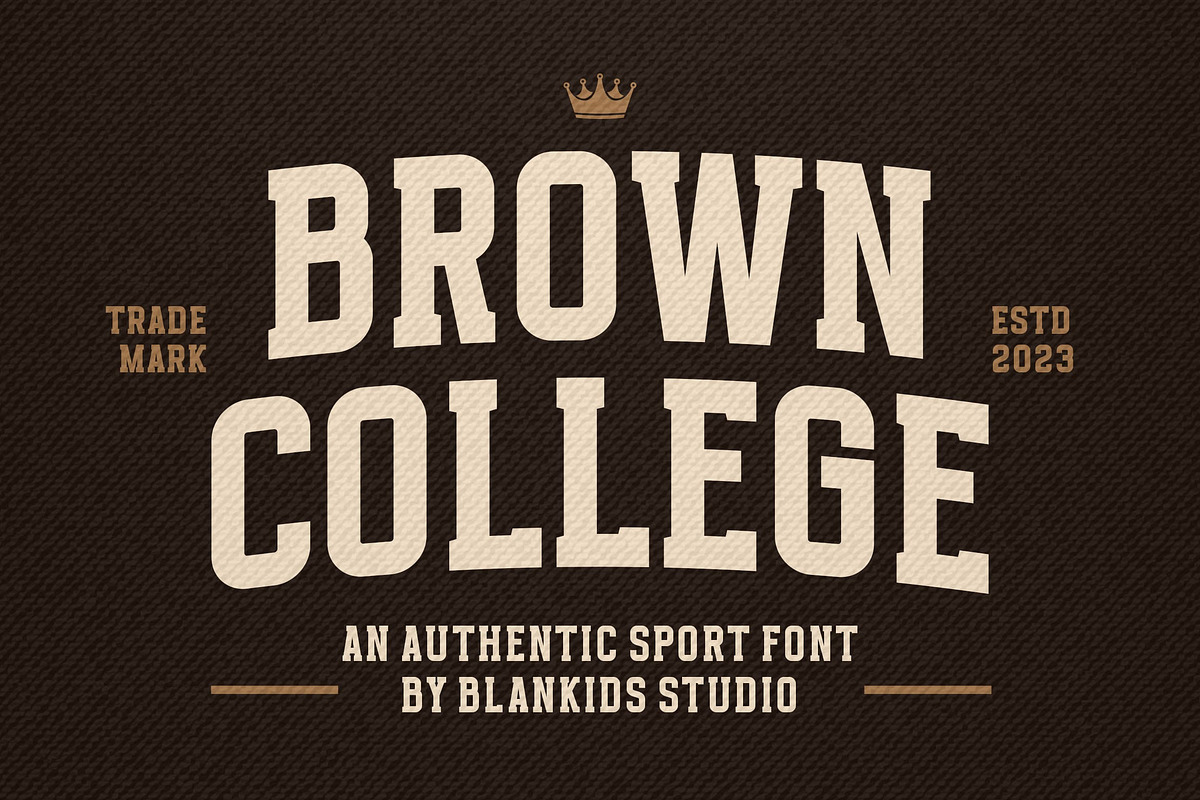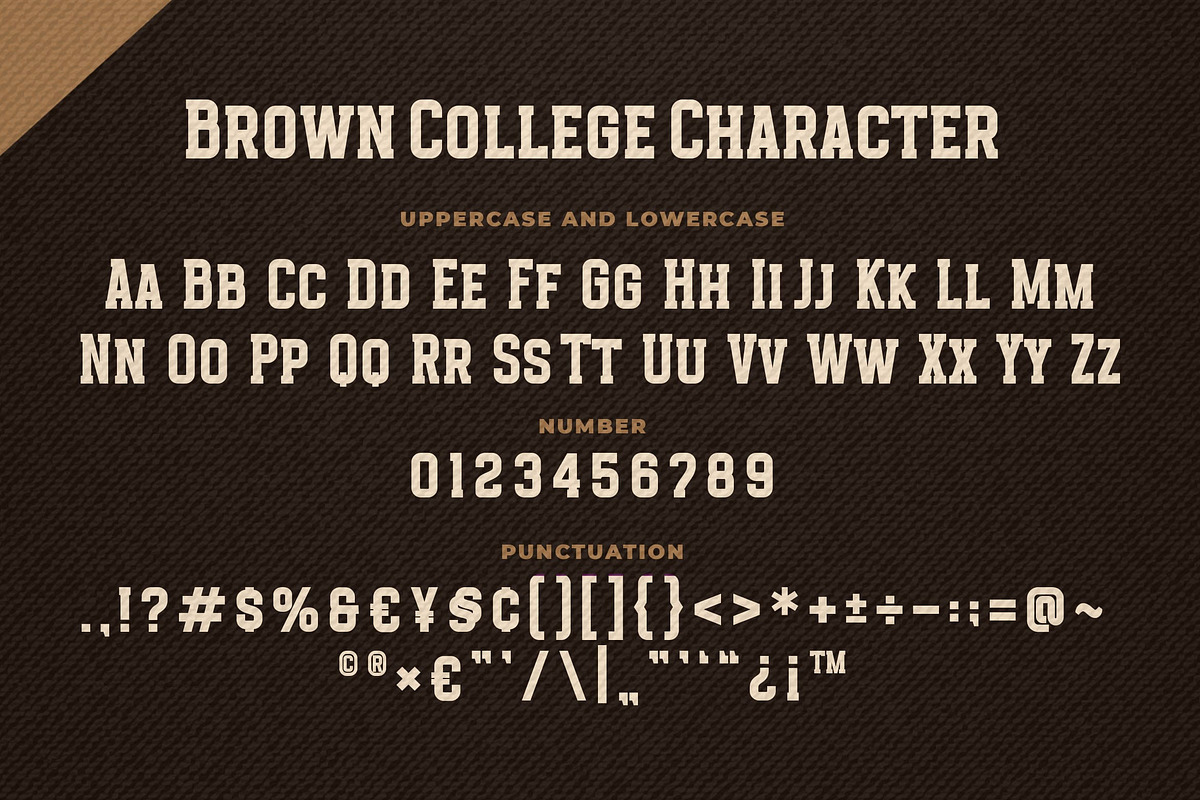
Brown College an Sport Serif Font
Are you looking for a sport college font? Do you want of creating Something that stand out and inspire creativity, imagination, and endless fun? Wait no more, we will give you the best choice.
Brown College an authentic sport font
Brown College an authentic sport font, Inspiring from college typography. This font is perfect for a design that makes it more attractive and playful. made with a very good level of aesthetics making this font suitable for book cover, poster, packging, merchandise, logotype and much more.